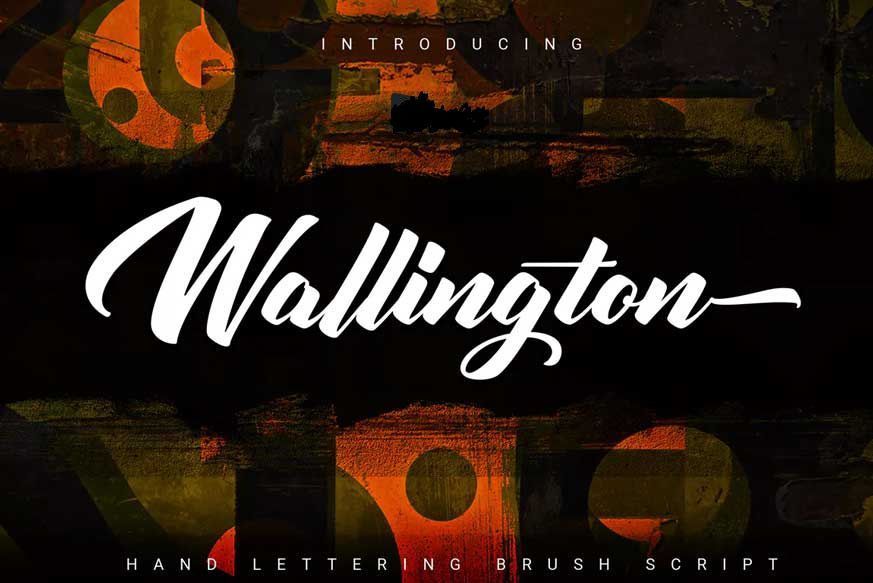
Wallington Hand Lettering Brush Font
Wallington | Hand Lettering Brush Script with a calligraphy style,
So beautiful on invitation like greeting cards, branding materials, business cards, quotes, posters, and more!